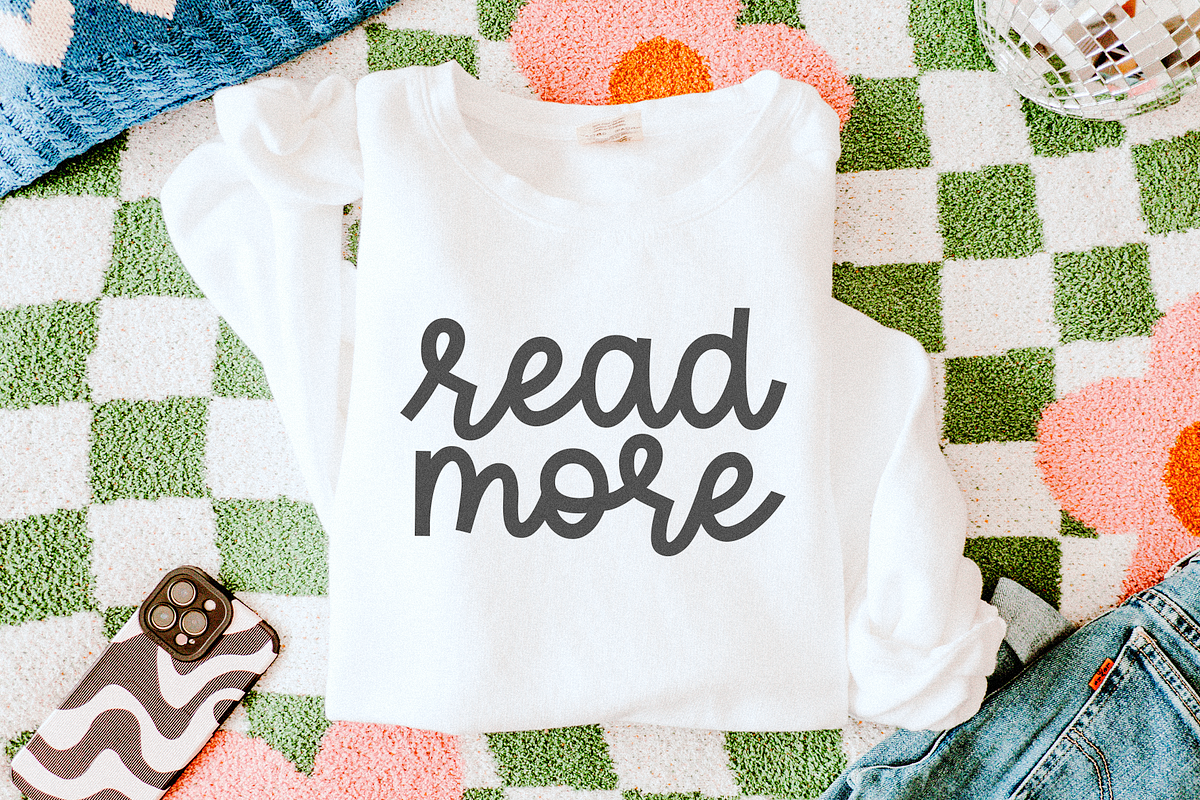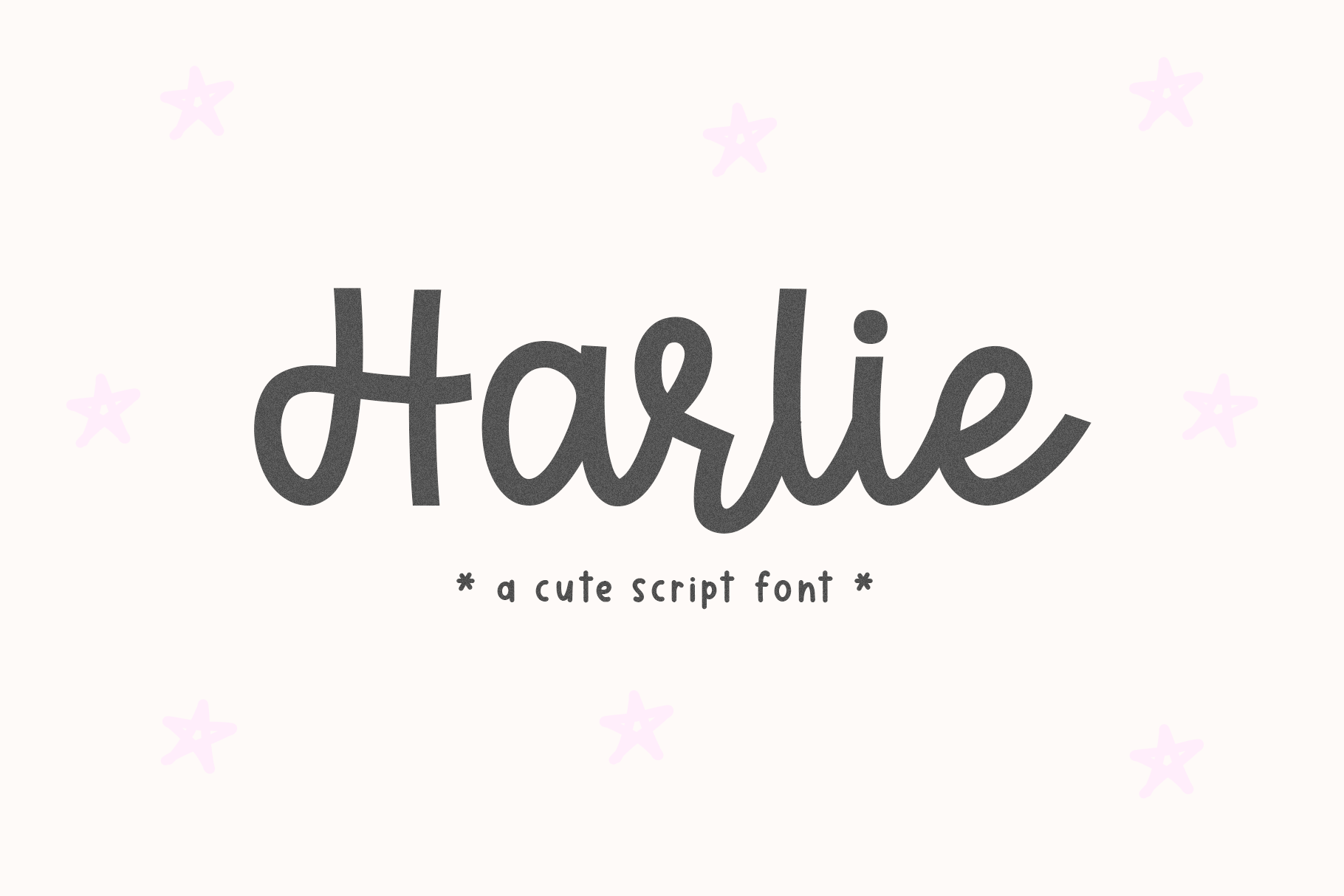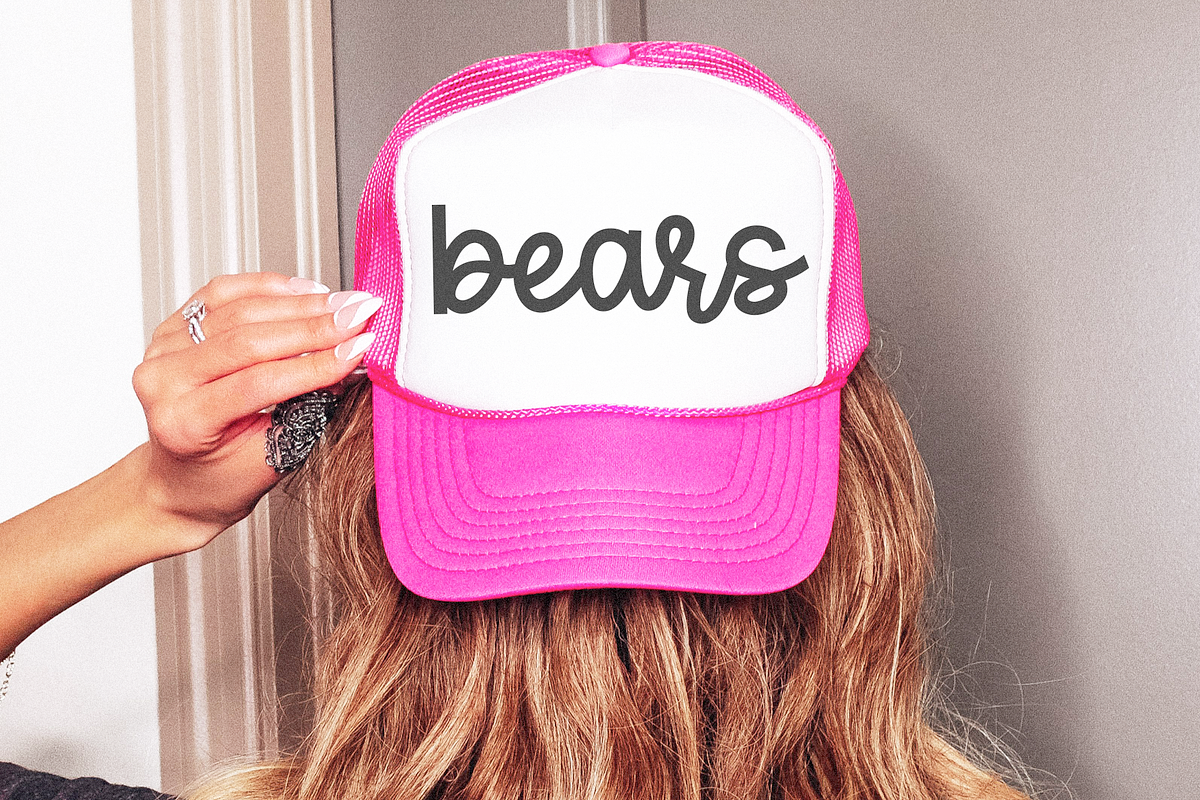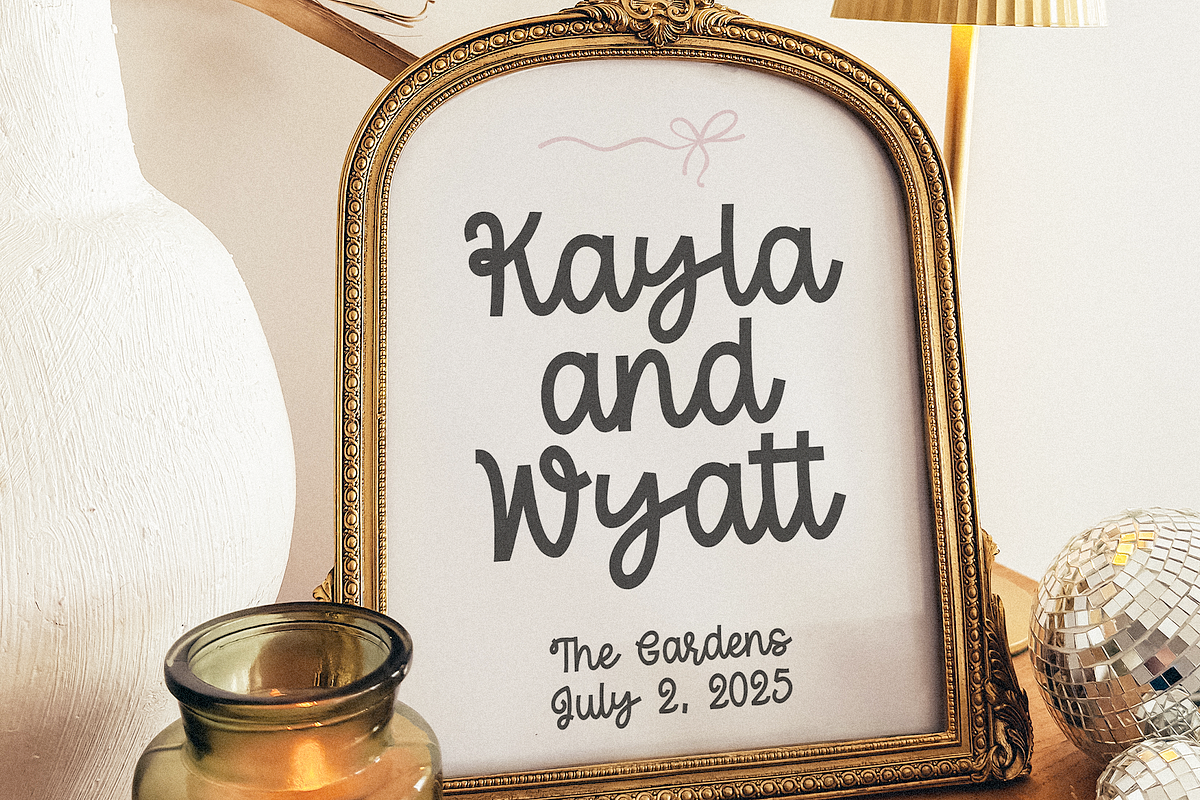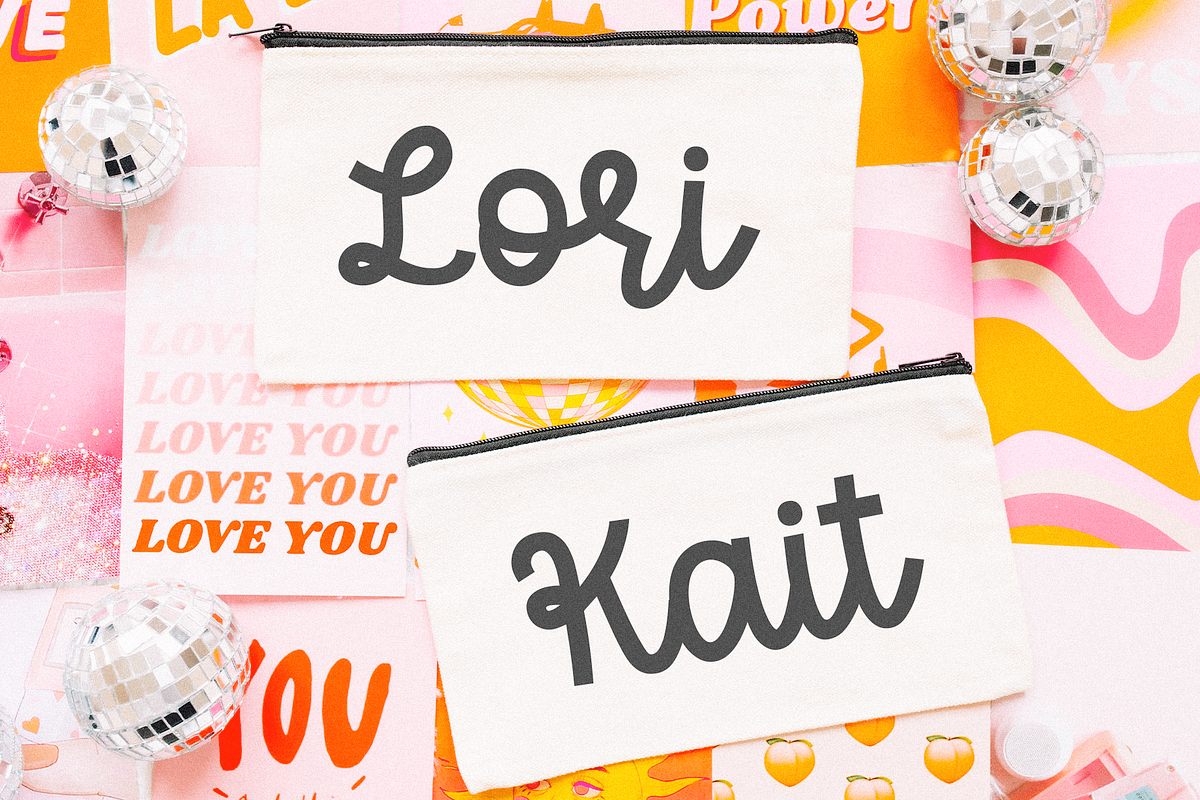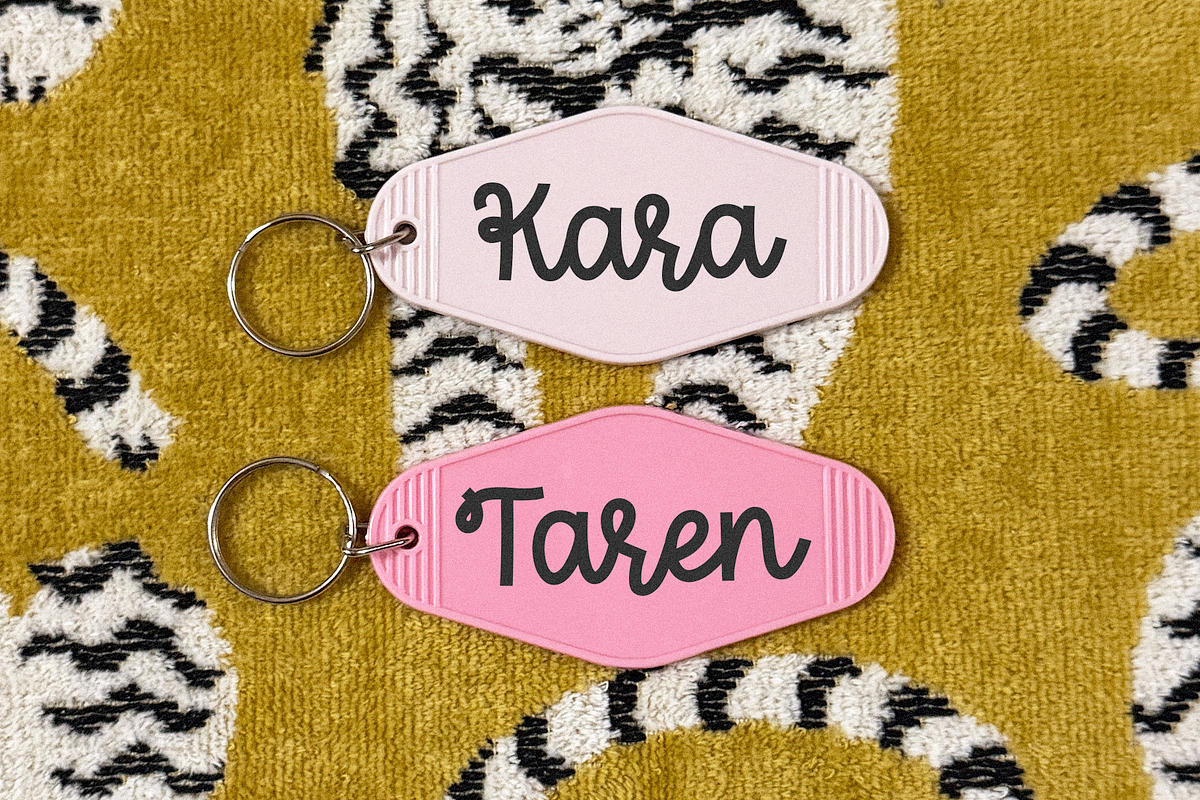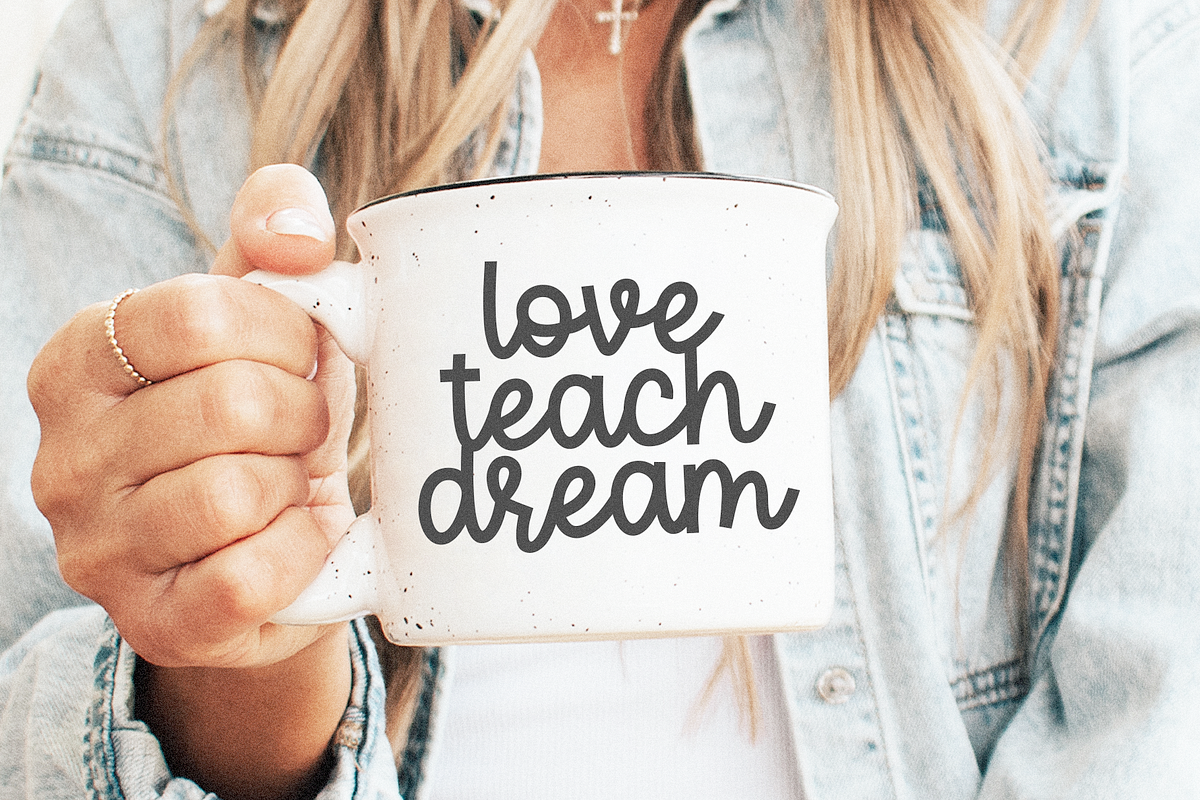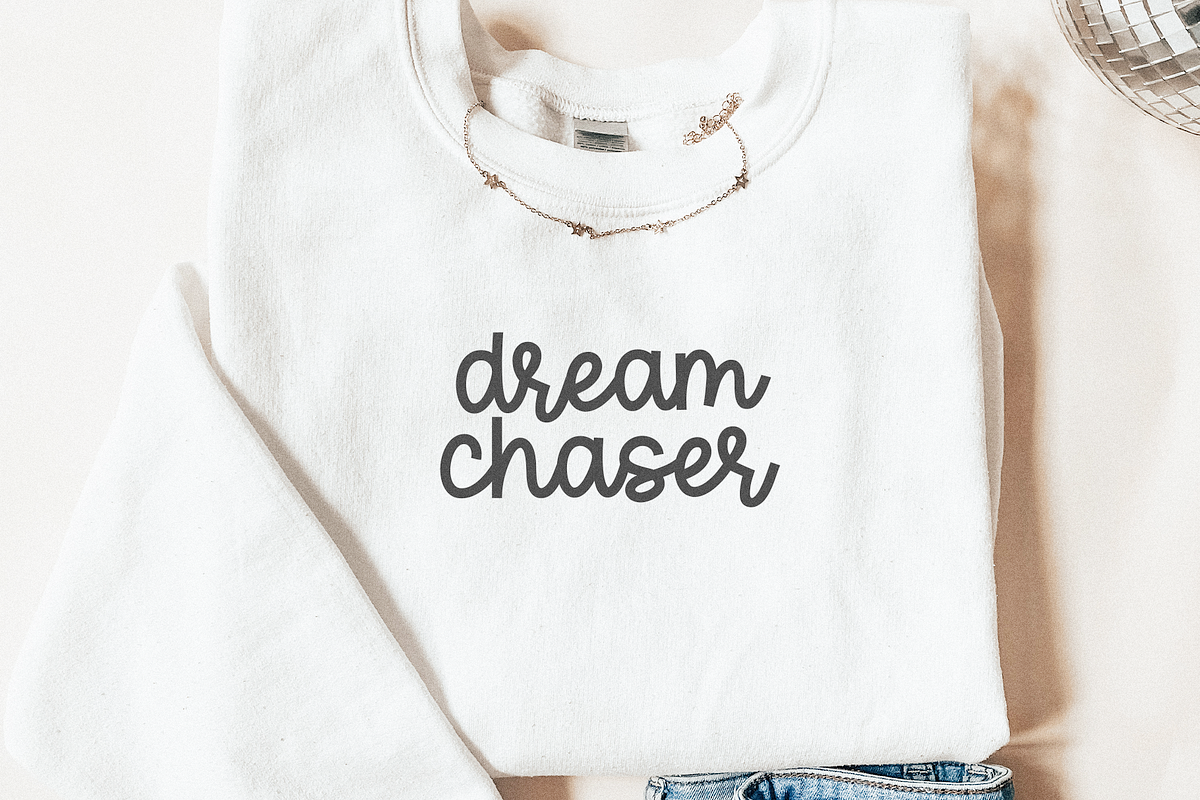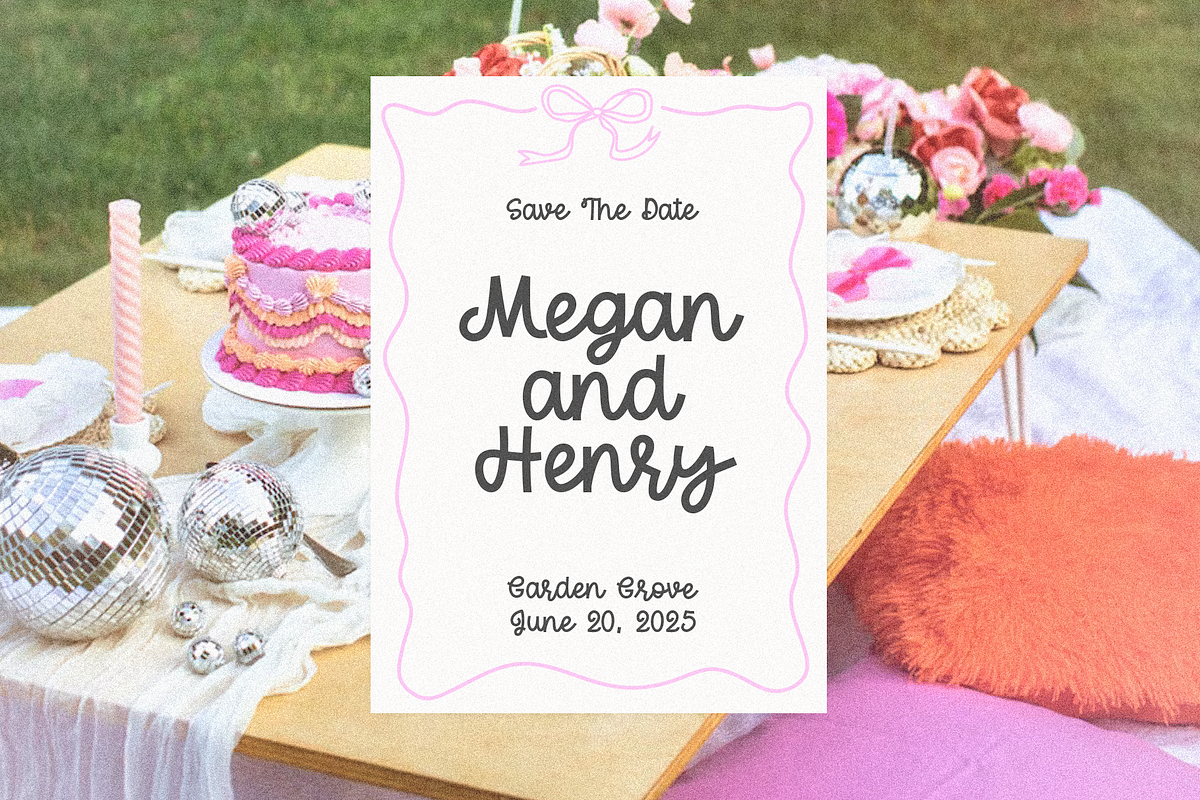
Harlie | Cute Script Font
Harlie is a cute handwritten script font.
This font is perfect for cricut projects, logos, shirts, svg files, teachers, Valentine's Day designs and more!